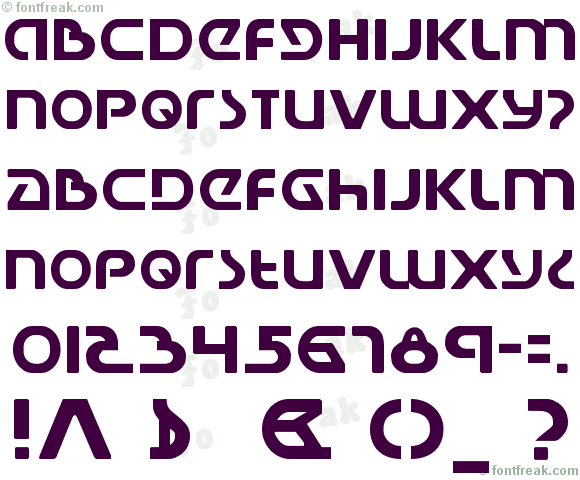
Universal Jack
Universal Jack by Iconian Fonts is a striking display typeface that embodies a modern aesthetic with its bold, geometric forms. This sans-serif font features a consistent stroke weight, lending it a sturdy and confident appearance. The absence of excessive contrast allows for clear readability, making it suitable for various applications. The design incorporates clean lines and a compact structure, which gives the font a contemporary edge while ensuring it stands out in any context.
Ideal for a wide range of creative projects, Universal Jack shines in use cases such as branding and advertising, where attention-grabbing typography is essential. It works particularly well on promotional materials like flyers and posters, offering an impactful presence that captures the viewer's eye. Additionally, the font can elevate restaurant menus, providing a modern touch that complements a chic dining atmosphere. It is also suitable for digital content, including social media graphics and web design, appealing to content creators looking to enhance visual storytelling.
What sets Universal Jack apart is its ability to blend simplicity with boldness, making it a perfect choice for those who wish to convey a strong message through their typography. Whether you are designing a logo, creating an advertisement, or developing a website, the Universal Jack font free download provides an excellent option for enhancing your visual identity with style and flair.